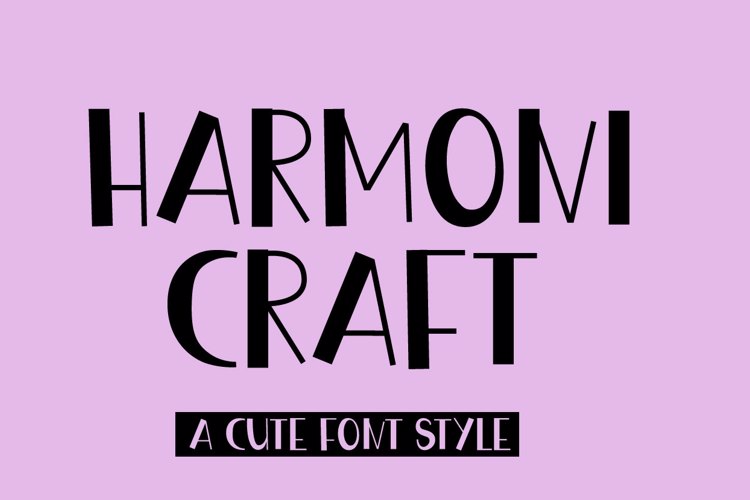
Harmony Craft Font
About Harmony Craft Font
Harmony Craft is a cool and friendly display font. Expertly designed to make your creation look out of this world, this font will look gorgeous on a variety of ideas.